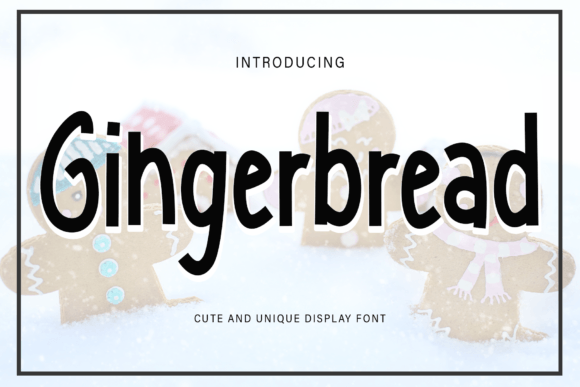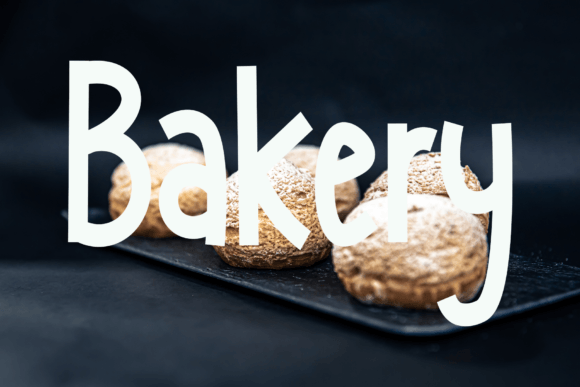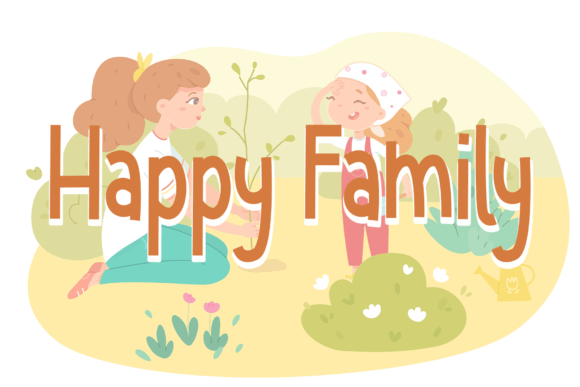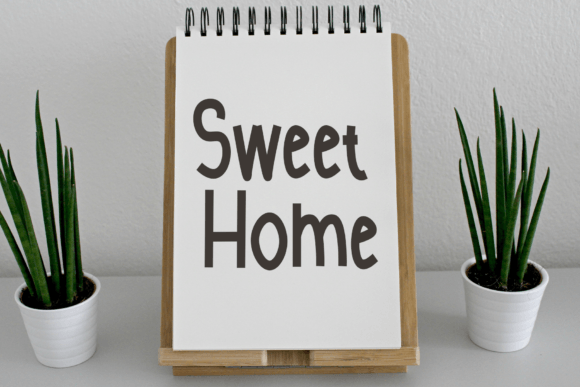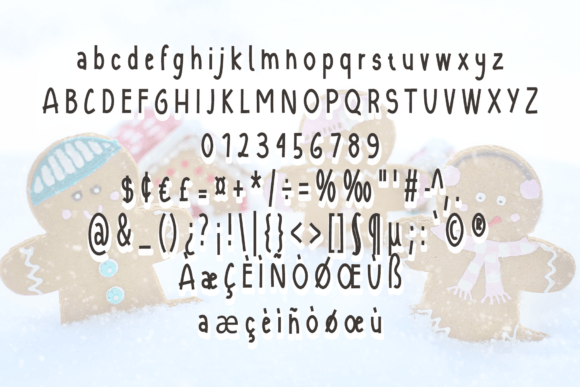
Gingerbread
About Gingerbread
Gingerbread is a simple handwritten font. This versatile font has a wide spectrum of applications ranging from greeting cards to headlines and is guaranteed to add a simple and natural feel to your next project!